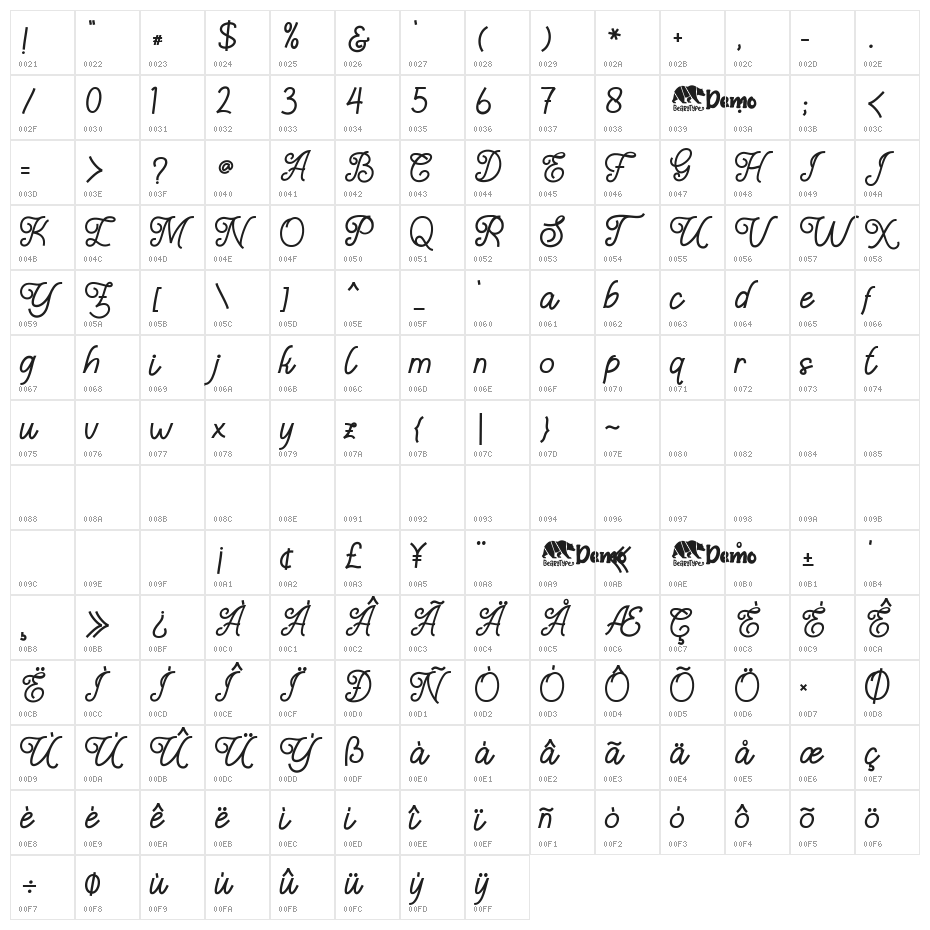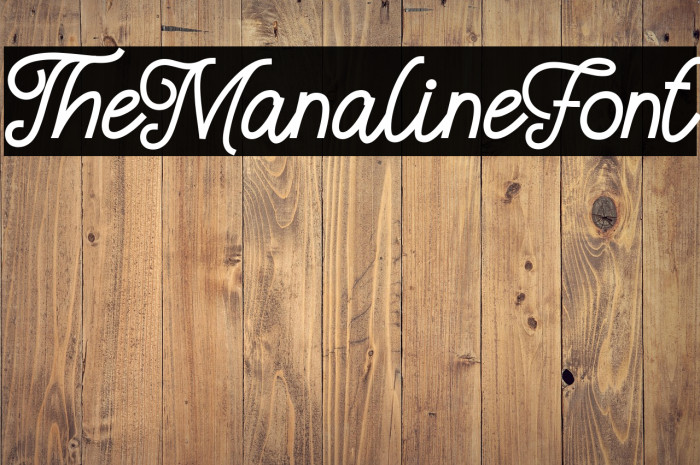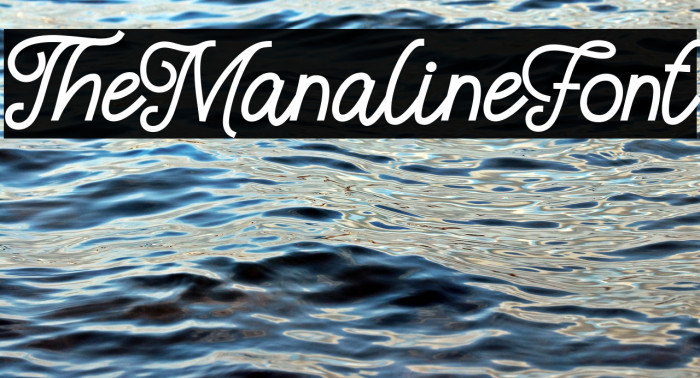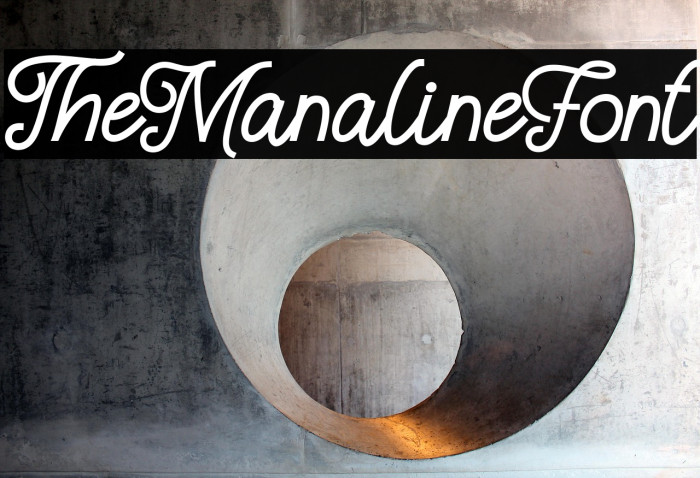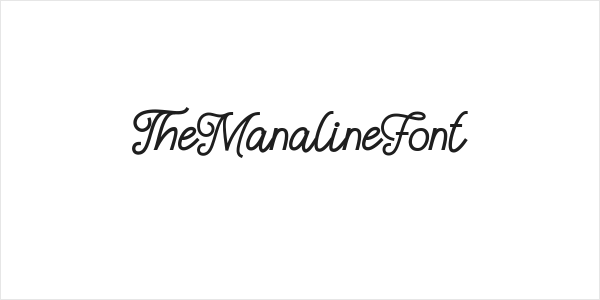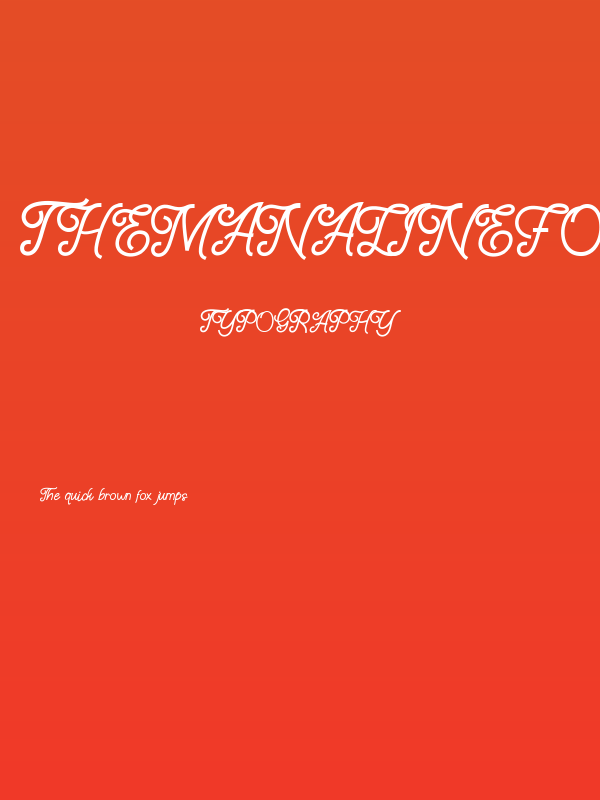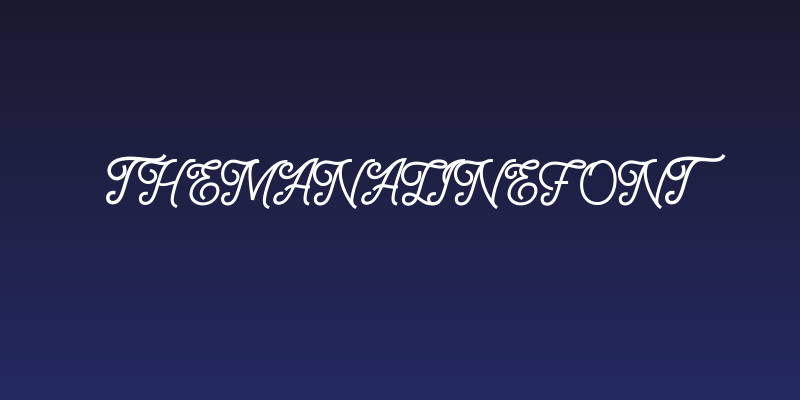
TheManalineFont Font
TheManalineFont Description
This font features a flowing, cursive style with elegant loops and swashes, giving it a handwritten appearance. The uppercase letters are particularly ornate, with each character exhibiting unique flourishes that add a touch of sophistication. The lowercase letters maintain a consistent style, complementing the uppercase with their smooth curves and connected strokes. Numbers and special characters are designed to match the overall aesthetic, ensuring a cohesive look across all text elements. The font's playful yet refined nature makes it suitable for a variety of creative projects.